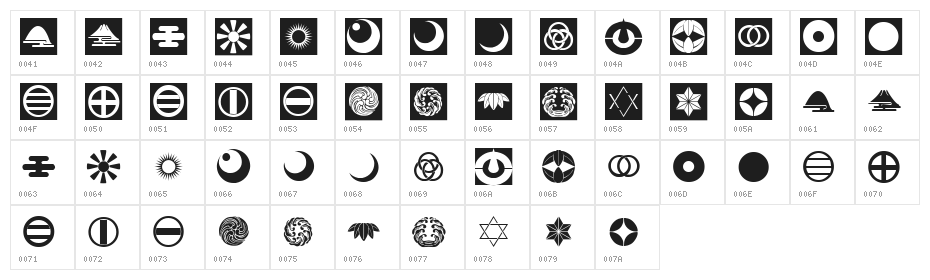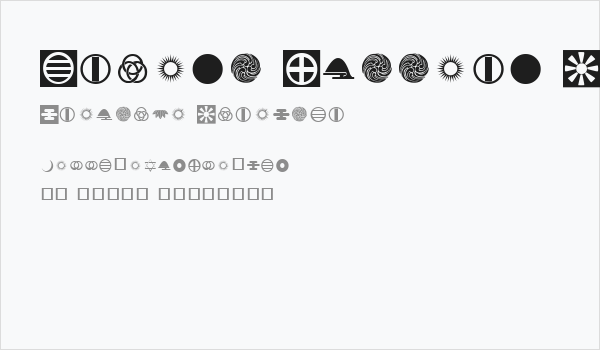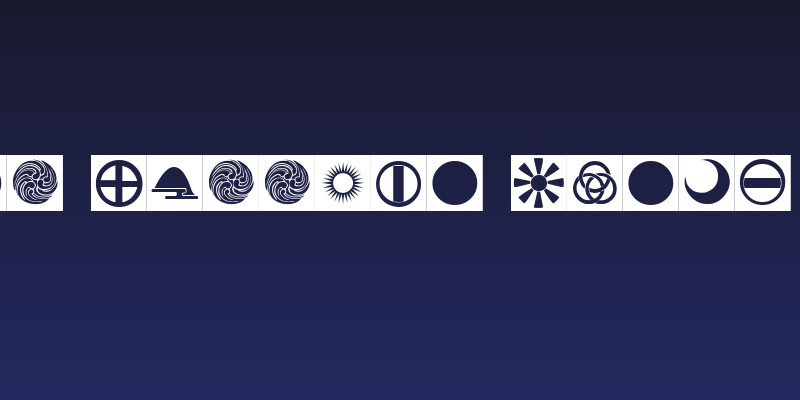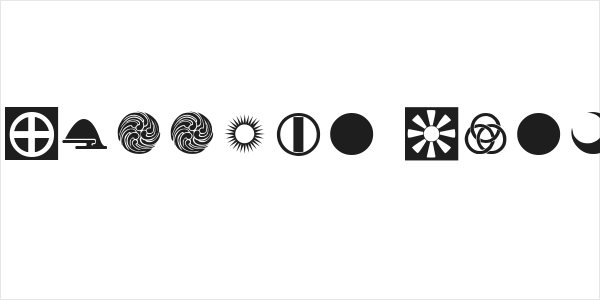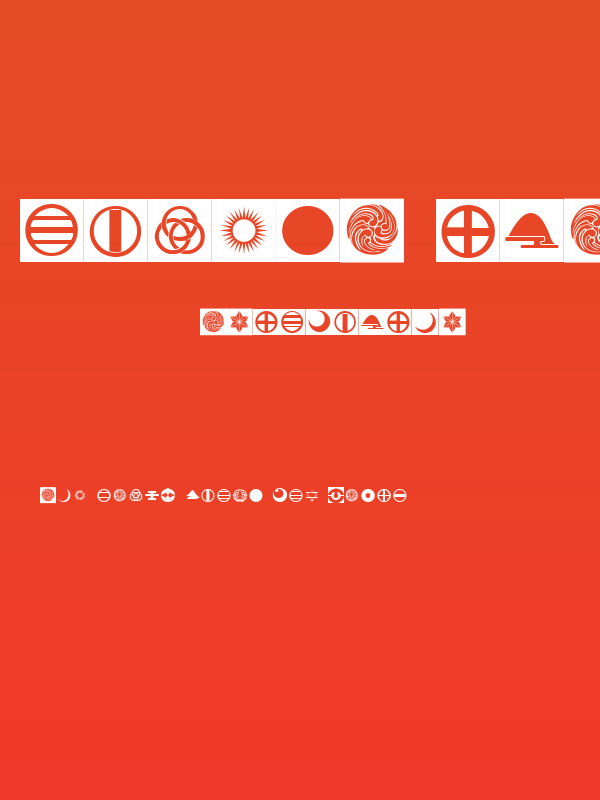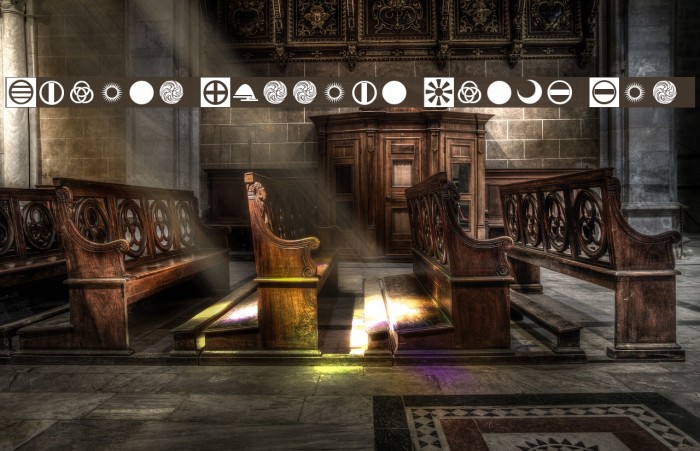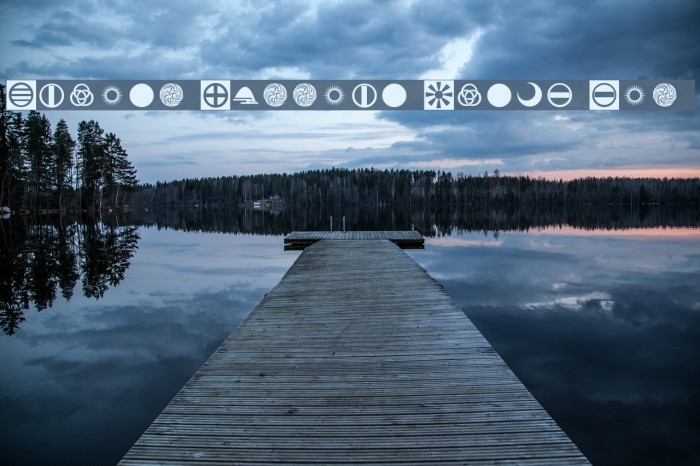
Orient Pattern Dings Set 5 Font
Orient Pattern Dings Set 5 Description
A collection of geometric and symbolic dingbat glyphs featuring circles, squares, stars, moons, abstract shapes, and floral motifs, all rendered in bold black-and-white with high contrast and clean edges.
| Overall Style | Decorative, Modern, Abstract |
| Use Case | Icons, Borders, Decorative elements, Logos |
| Proposed Projects | Branding, packaging, decorative borders, invitations, digital stickers, icon sets, scrapbooking, and ornamental design. |